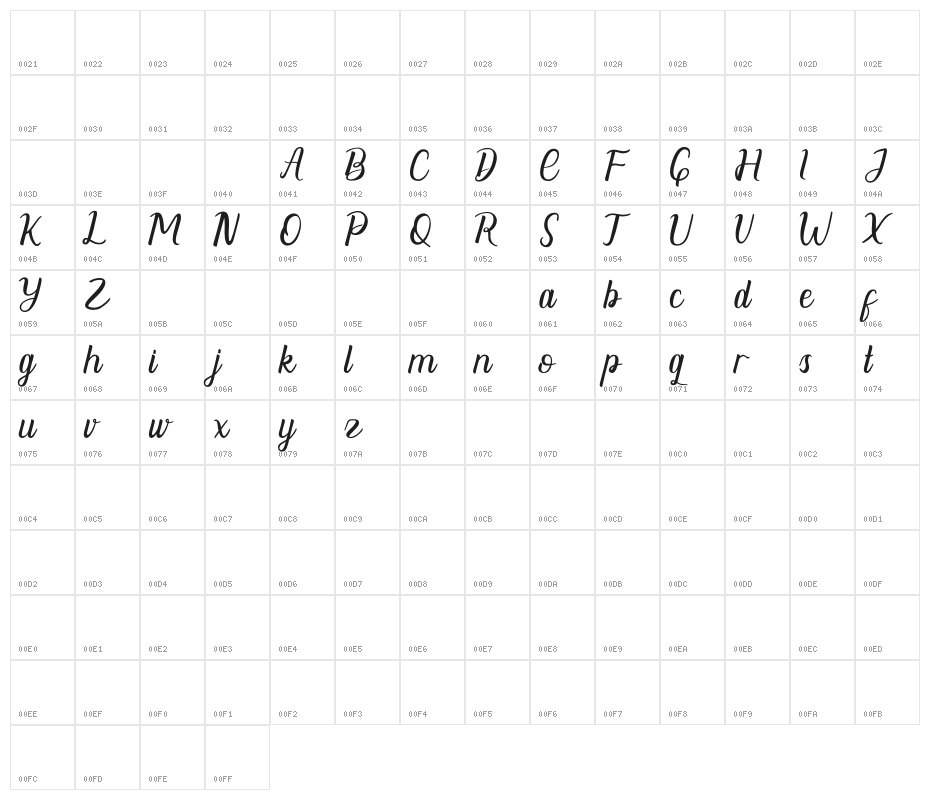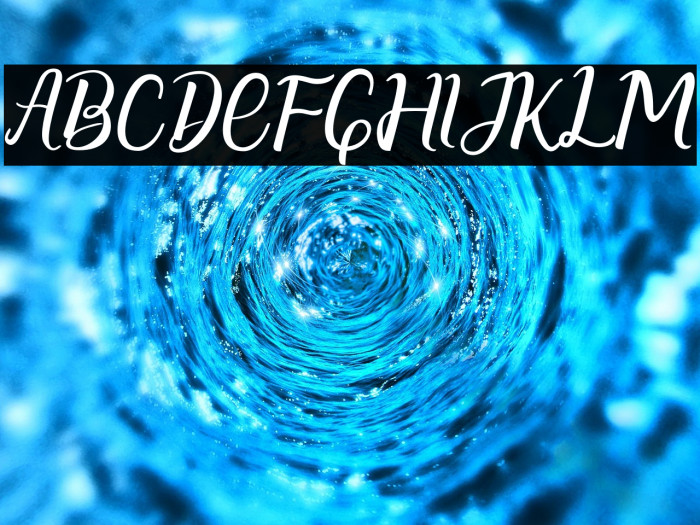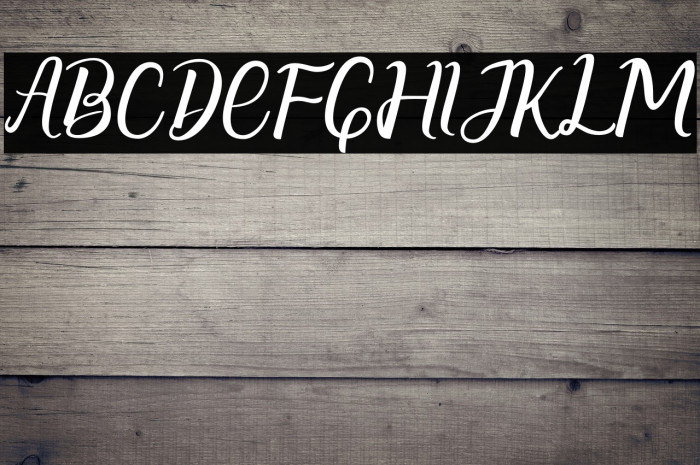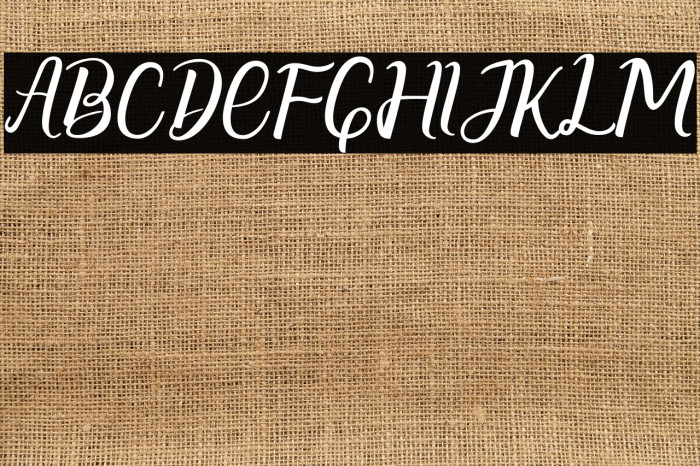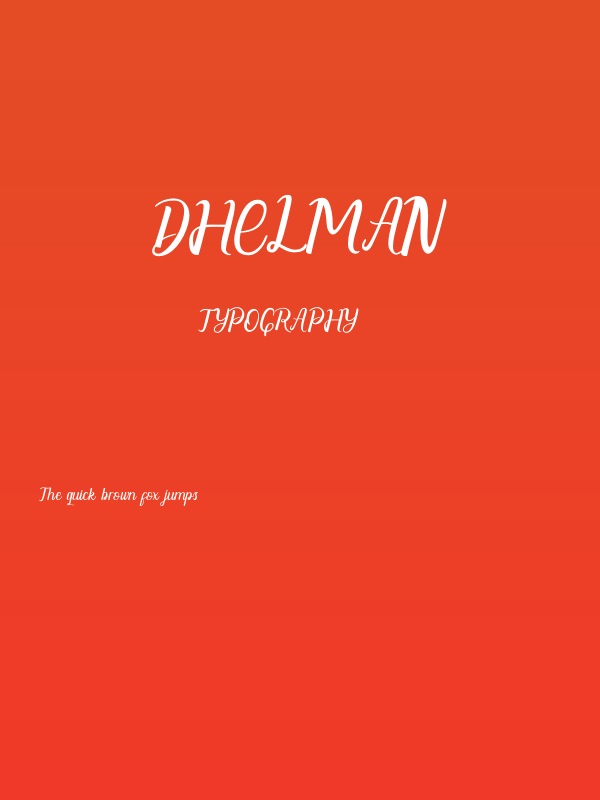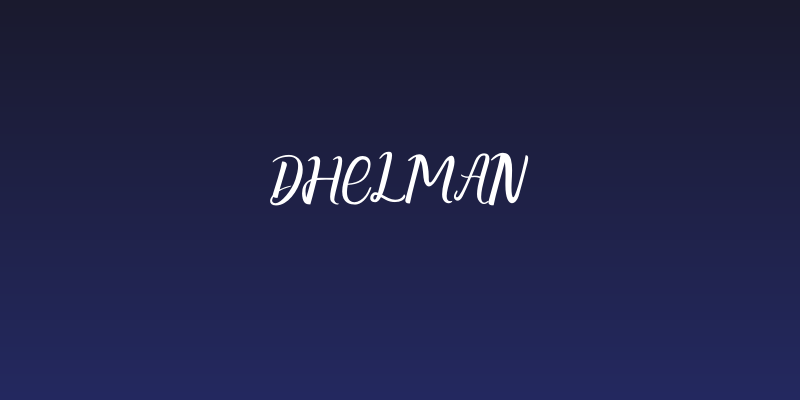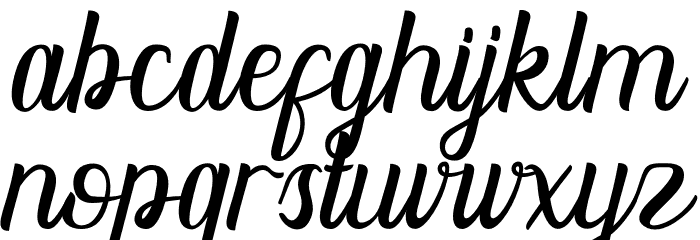
Dhelman Font
Dhelman Description
This font exudes a lively and elegant script style, characterized by its flowing, cursive letterforms. The uppercase letters are bold and sweeping, with distinctive loops and flourishes that add a touch of sophistication. The lowercase letters maintain a consistent rhythm and are slightly more compact, yet they retain the same fluidity and grace. The font's overall appearance is both classic and modern, making it versatile for various design applications. Its smooth curves and balanced proportions ensure readability while conveying a sense of creativity and flair.
| Overall Style | Elegant, Modern |
| Proposed Projects | Ideal for wedding invitations, branding, greeting cards, and elegant packaging designs. |